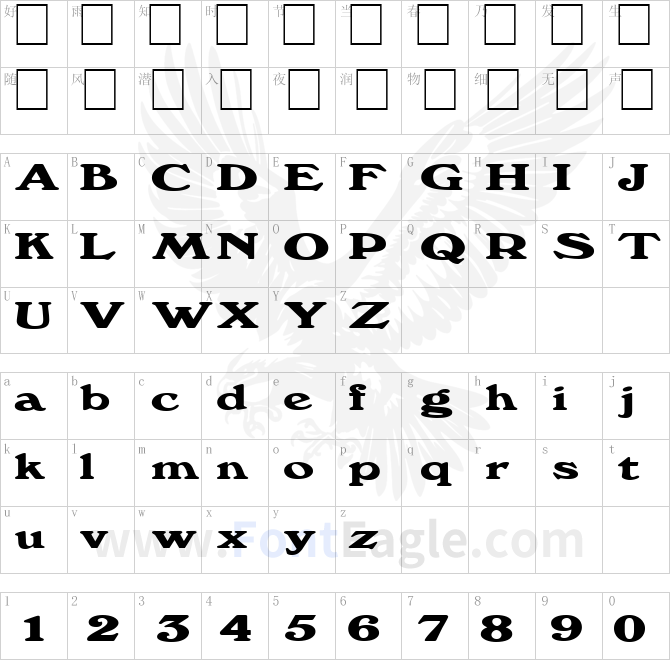
FZ-ROMAN-12-EX is a great font, widely used in graphic design, single-page menu design, poster design and other fields, and is deeply loved by designers.FZ-ROMAN-12-EX download.